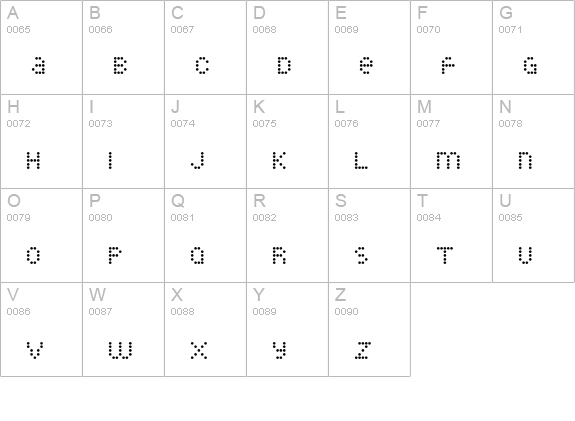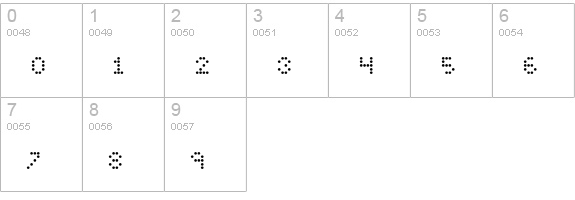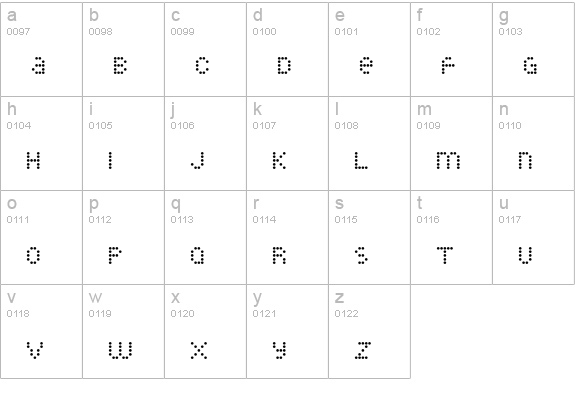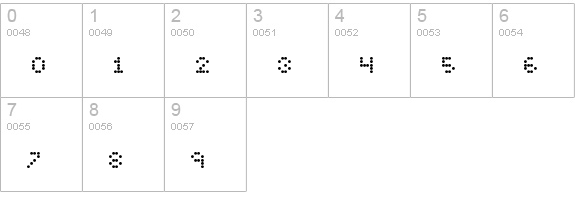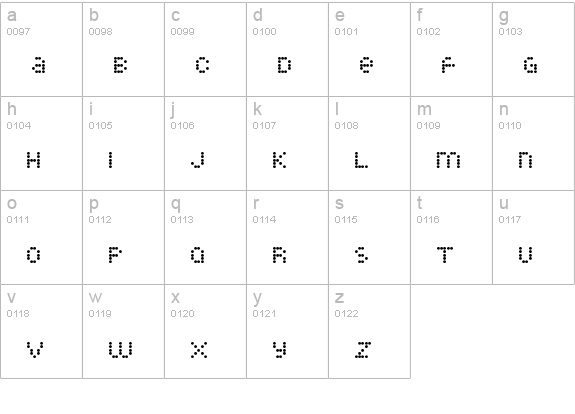
Introducing LittleDotties font - a whimsical and charming typeface that will add a touch of playfulness to your designs. With its quirky dots scattered throughout each letter, LittleDotties brings a sense of fun and creativity to any project. This versatile font is perfect for children's books, greeting cards, posters, and more. And the best part? LittleDotties is available for free download at FontsMarket.com! Don't miss out on the opportunity to add this delightful font to your collection without spending a dime. Let your imagination run wild with LittleDotties and watch your designs come to life with its unique and captivating charm.